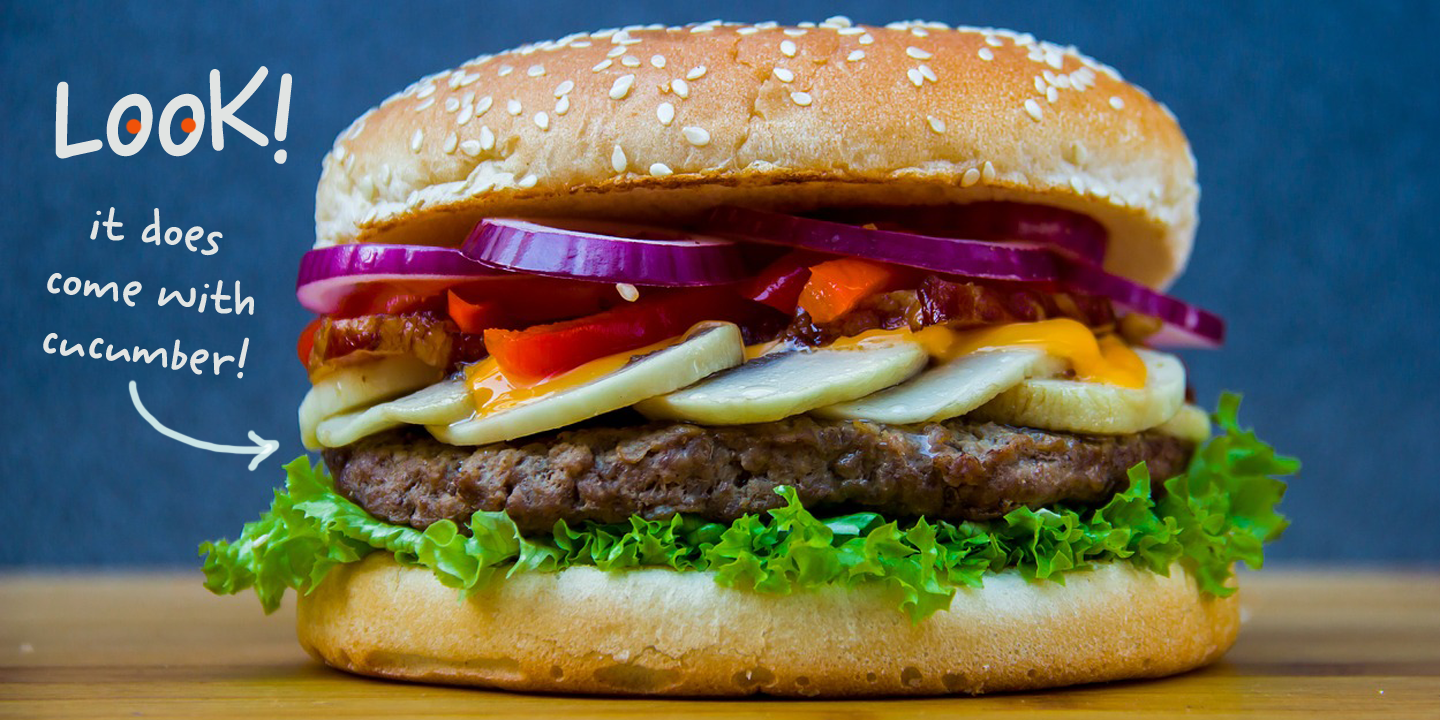
Ketimun Font is perfect for organic food brands, fresh produce marketing, healthy lifestyle blogs, garden center signage, spa and wellness centers, natural skincare products, vegetarian restaurants, hydration campaigns, and any project requiring typography with crisp freshness and natural cooling aesthetics.
What makes Ketimun Font exciting is its refreshing coolness that captures the crisp vitality and hydrating essence of fresh cucumber with clean letterforms that seem to glisten with morning dew and natural moisture. This invigorating typeface embodies the pure simplicity of natural refreshment with smooth curves that reflect the sleek surface and cooling properties of this beloved garden vegetable. The font's fresh character and natural sophistication make it perfect for brands celebrating health, hydration, and the revitalizing power of nature's most refreshing ingredients.
The Ketimun Font family includes light, regular, and bold weights, featuring complete uppercase and lowercase alphabets, numerals, punctuation marks, and fresh design elements. The font maintains consistent crisp elegance throughout all weights while ensuring excellent readability for both refreshing headlines and hydrating text applications in health and wellness contexts.
Whether you're designing for organic food companies, creating wellness brand materials, or developing health-focused marketing with natural freshness aesthetics, Ketimun Font Free Download delivers unmatched natural vitality and refreshing sophistication to your projects. This exceptional typeface transforms ordinary text into crisp expressions of natural health that celebrate the cooling beauty and hydrating benefits of fresh produce. The font's refreshing character makes it ideal for health food stores, wellness centers, and natural lifestyle brands. Download this remarkable font today and bring the cool freshness of natural hydration to your design projects with authentic organic sophistication and cucumber-inspired vitality.